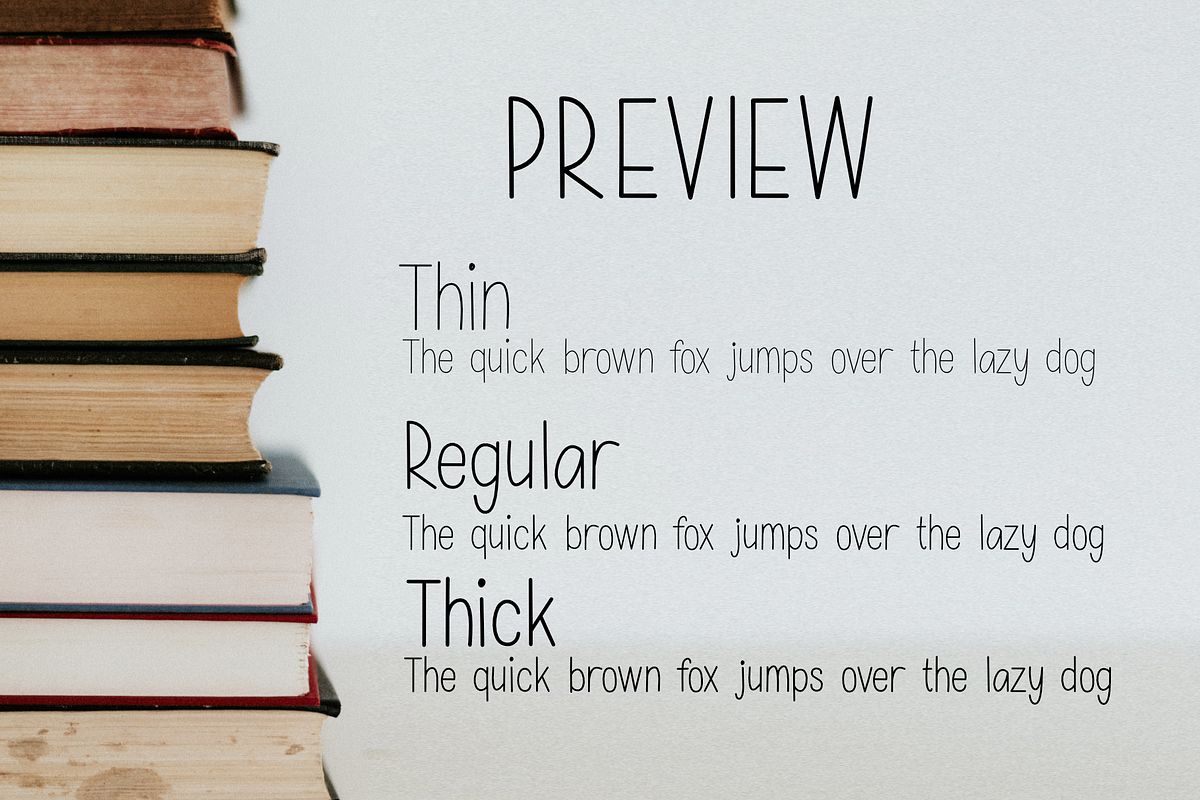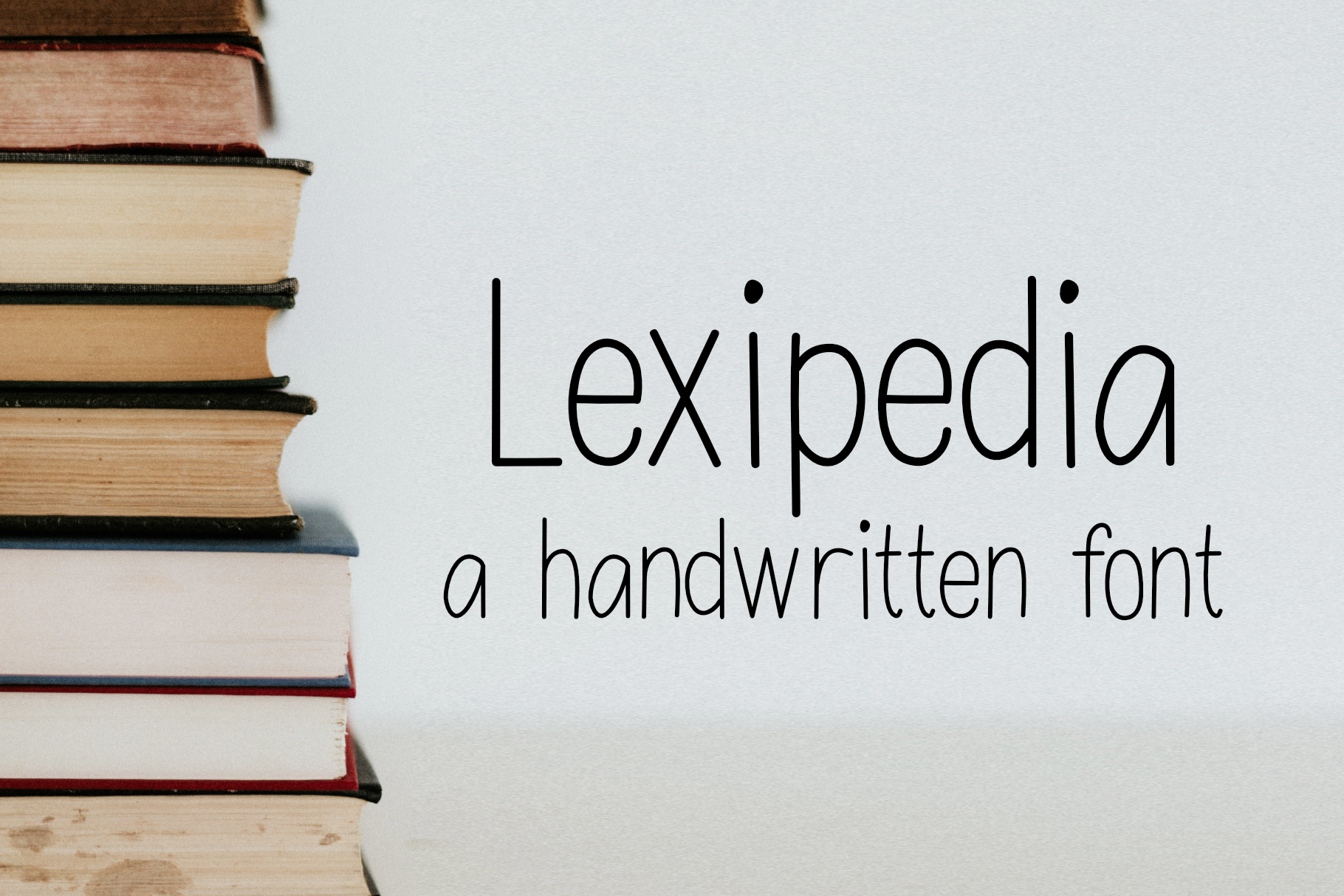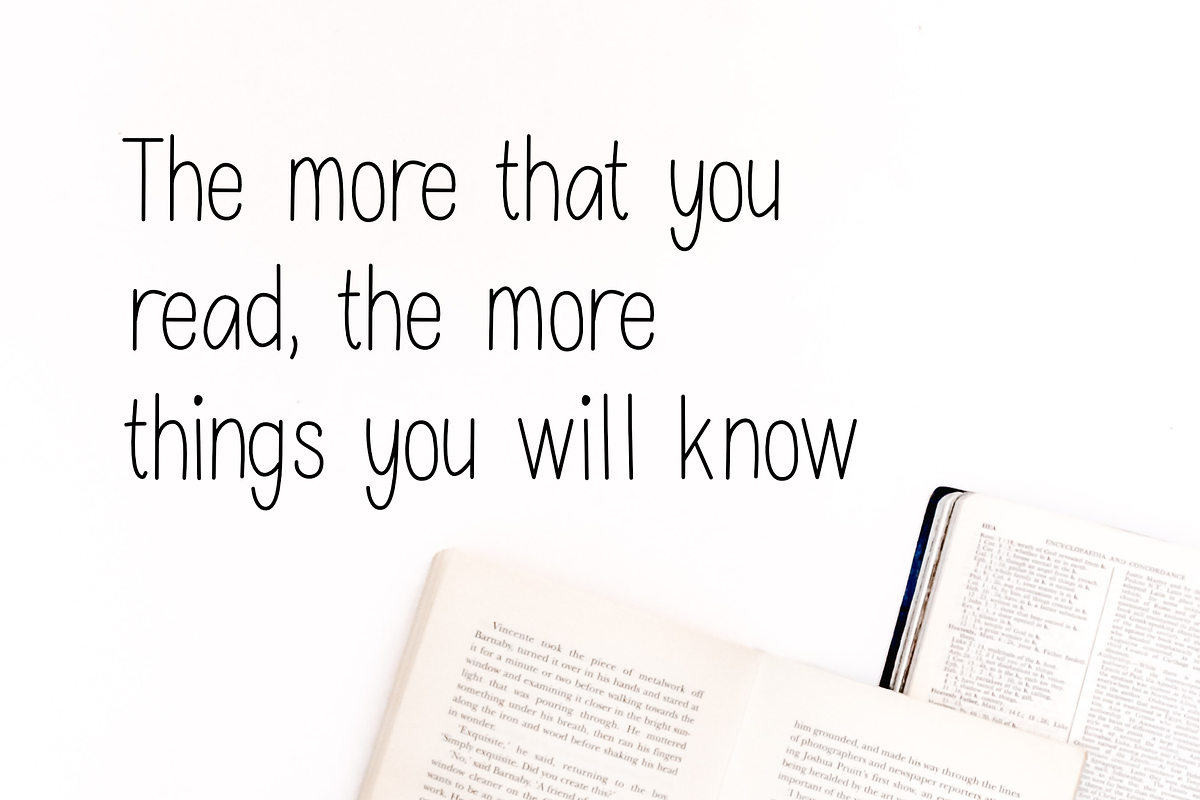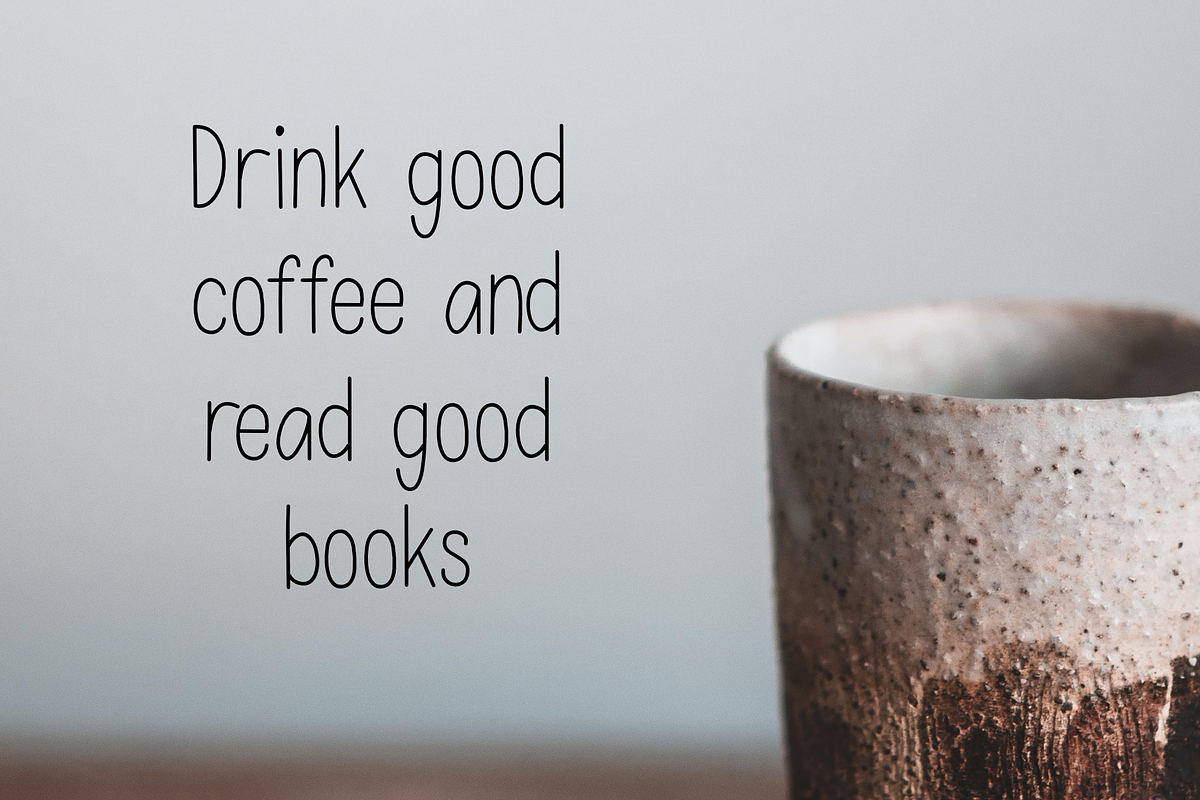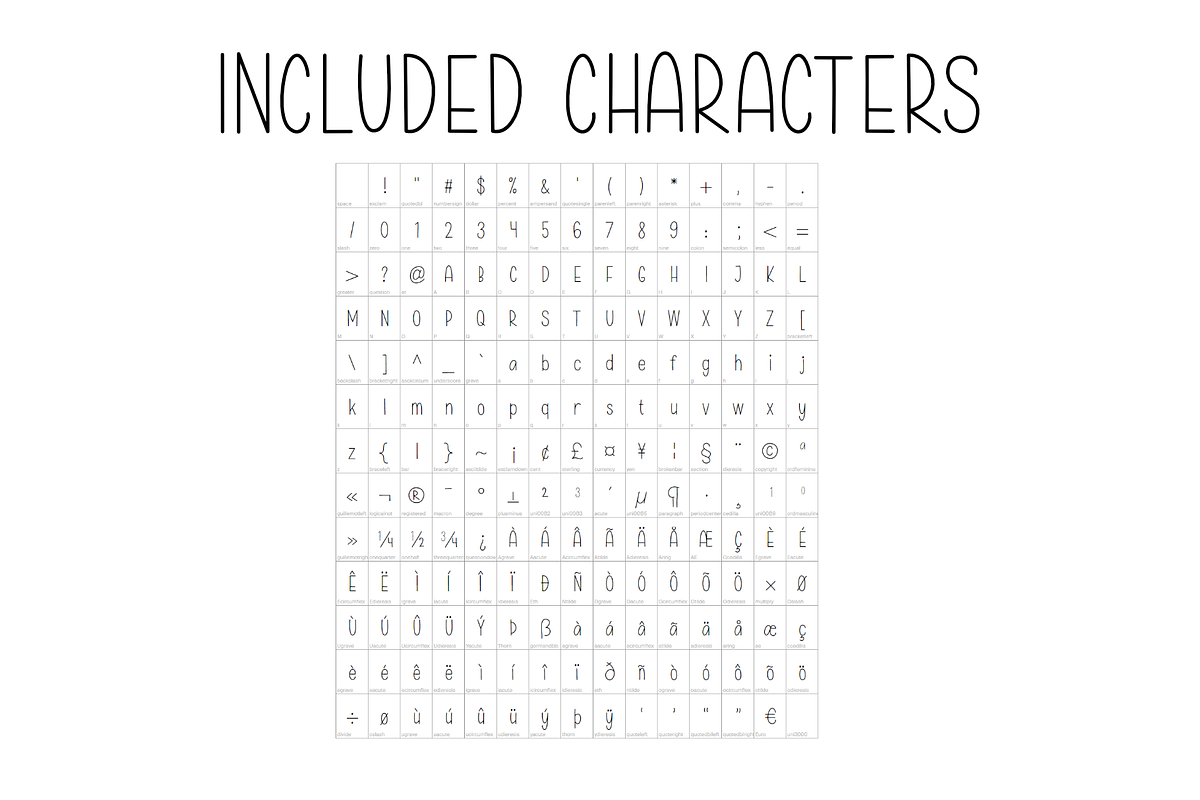
Lexipedia | a cute handwritten font
Lexipedia is a fun hanwritten typeface, in the style of sans-serif. You will get this font in three weights; thin, regular and thick. All weights come in both .ttf and .otf